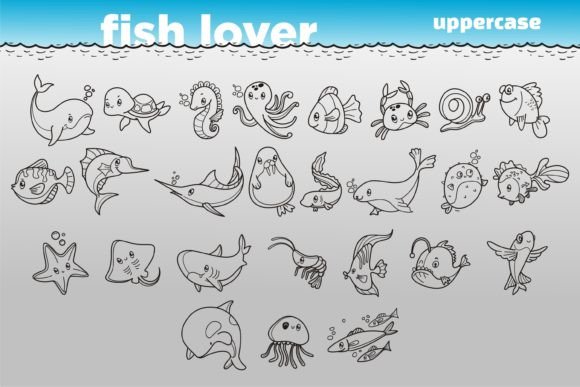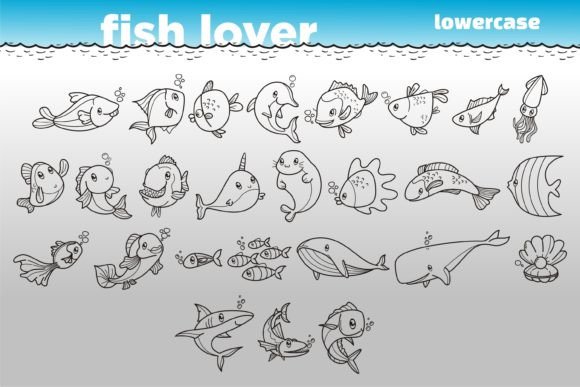
ABOUT FISH LOVER FONT
“Fish Lover” is an adorable and versatile dingbat font that caters to fish enthusiasts and lovers of cute and playful designs. With its unique and eye-catching fish-themed illustrations, this font offers endless possibilities for a variety of creative projects.
Crafting enthusiasts will find “Fish Lover” to be a delightful addition to their collection. The dingbat font features a range of cute fish illustrations, including different species, colors, and expressions. These fishy characters can be used to adorn handmade cards, scrapbook pages, and other paper crafts, instantly adding a touch of charm and whimsy to your creations.
In the realm of digital design, “Fish Lover” shines as a go-to font for adding a playful element to your projects. Whether you’re designing digital invitations, creating social media graphics, or crafting presentations, the fish-themed dingbats can bring a unique and lighthearted touch to your designs. You can use them as decorative elements, bullet points, or even create patterns and borders using the fish illustrations.
When it comes to making greeting cards, “Fish Lover” offers a creative twist. Instead of relying solely on traditional motifs, you can incorporate the cute fish dingbats into your card designs. Whether it’s a birthday card, a thank-you note, or a special occasion card, the fish-themed illustrations will bring joy and a sense of fun to your greetings.
The versatility of “Fish Lover” extends beyond specific occasions. The cute and playful nature of the dingbat font makes it suitable for various projects throughout the year. From children’s illustrations and nursery decor to party decorations and educational materials, “Fish Lover” can bring a touch of whimsy and character to any design.
So, whether you’re crafting, designing digitally, creating presentations, or making greeting cards, “Fish Lover” is the perfect dingbat font to add a dose of cuteness and playfulness to your projects. Let your creativity swim free as you explore the endless possibilities and make “Fish Lover” your go-to font for any occasion.